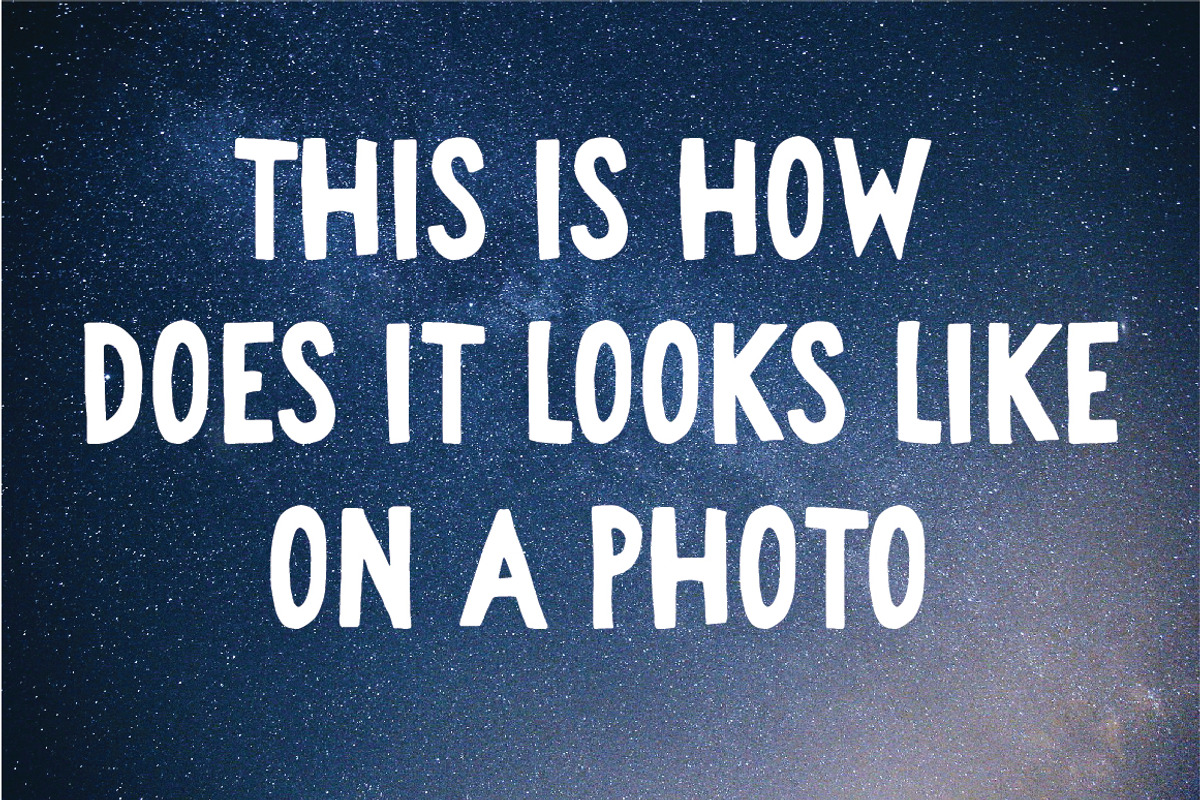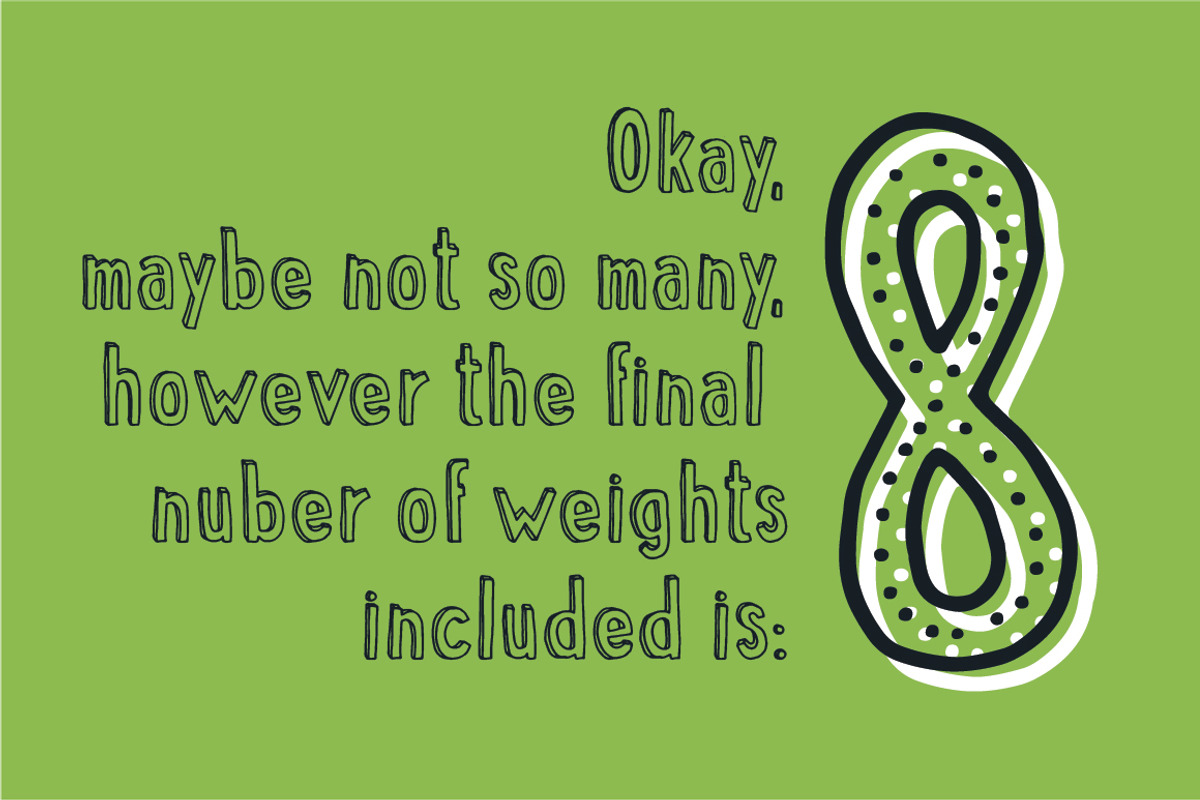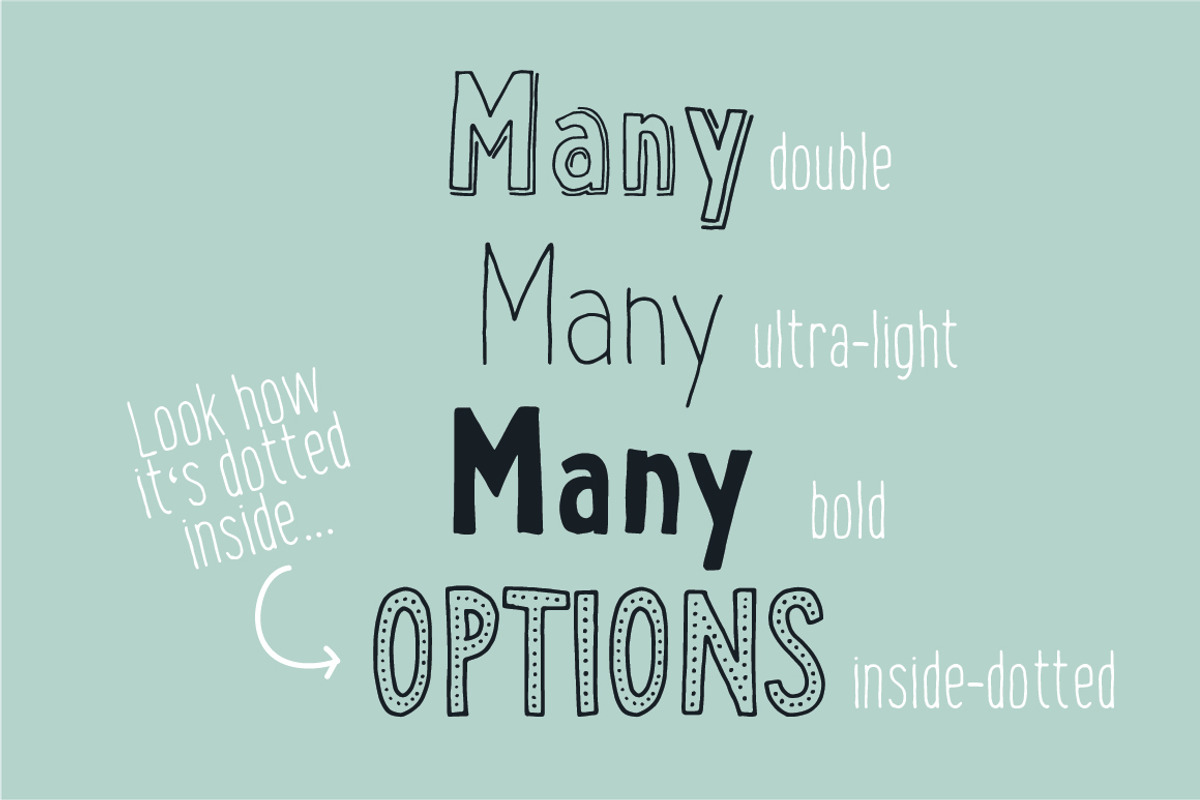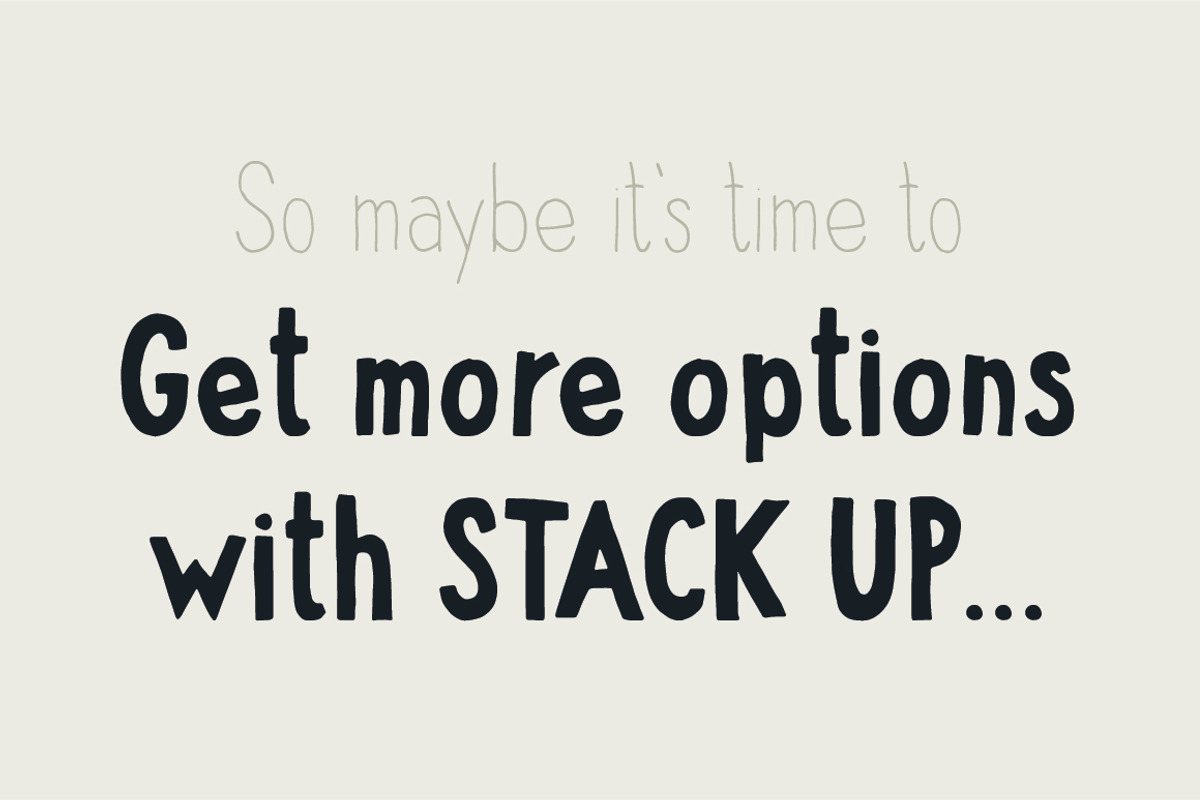
Stack up - The universal font family
Stack up - The universal font family by Vitek Graphic is a font selected for branding, posters, packaging, typography.
- Stack up Dotted Stack up Extra Thin Stack up Regular Stack up Bold Stack up Shadow Stack up Double Stack up Inside-Dotted Incl
- Stack up Extra Light
- Stack up Light
- Stack up Regular
- Stack up Bold
- Stack up Dotted
- Stack up Double
- Stack up Inside-Dotted
- Stack up Shadow